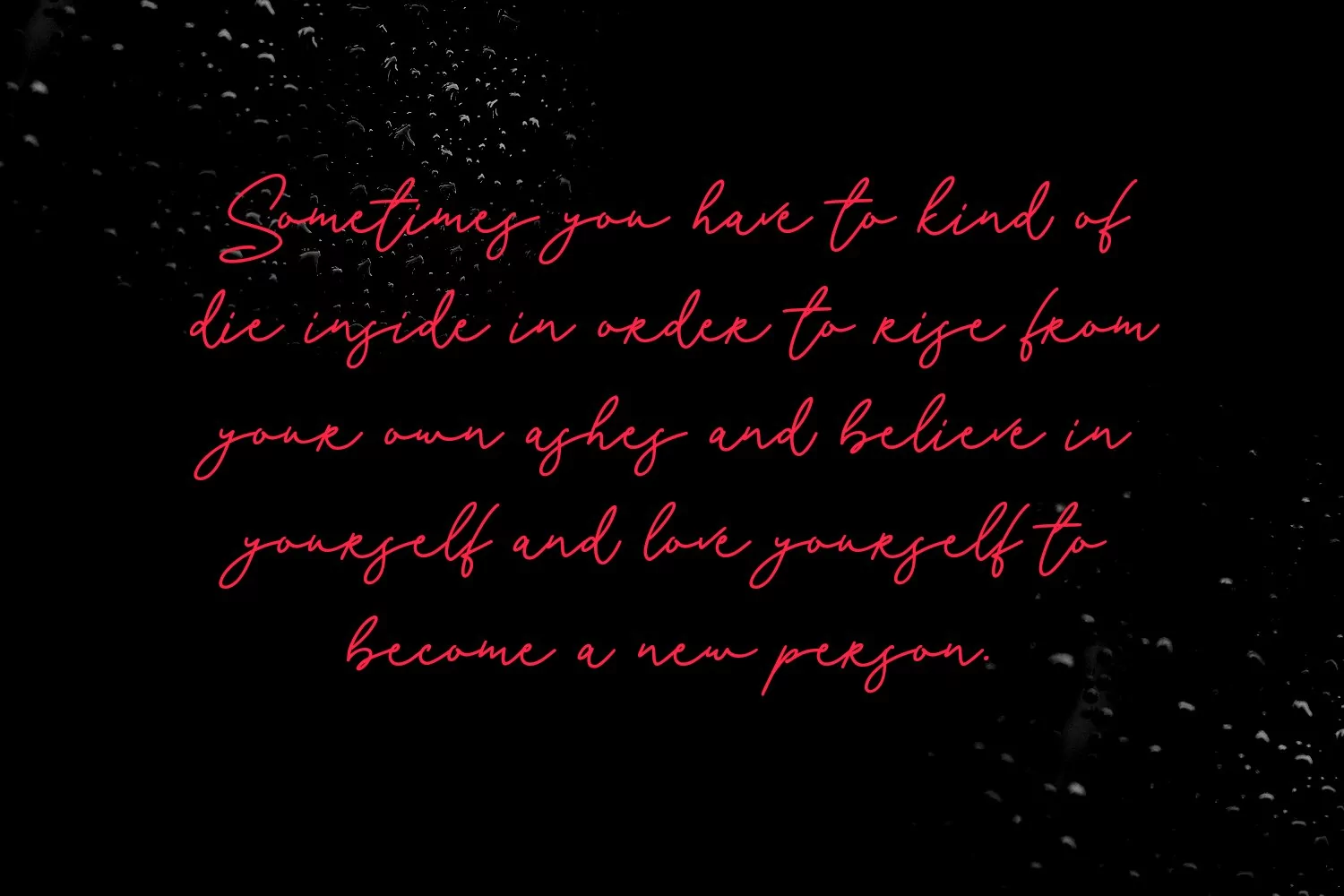
Gillfloys is a simply casual signature script font. With regular mono-line stroke, slant and fun character with a bit of ligatures and a bit much ligatures in Gillfloys Alt. To give you an extra creative work. Gillfloys font support multilingual more than 100+ language. This font is good for logo design, Social media, Movie Titles, Books Titles, a short text even a long text letter and good for your secondary text font with Script. Make a stunning work with Gillfloys font.